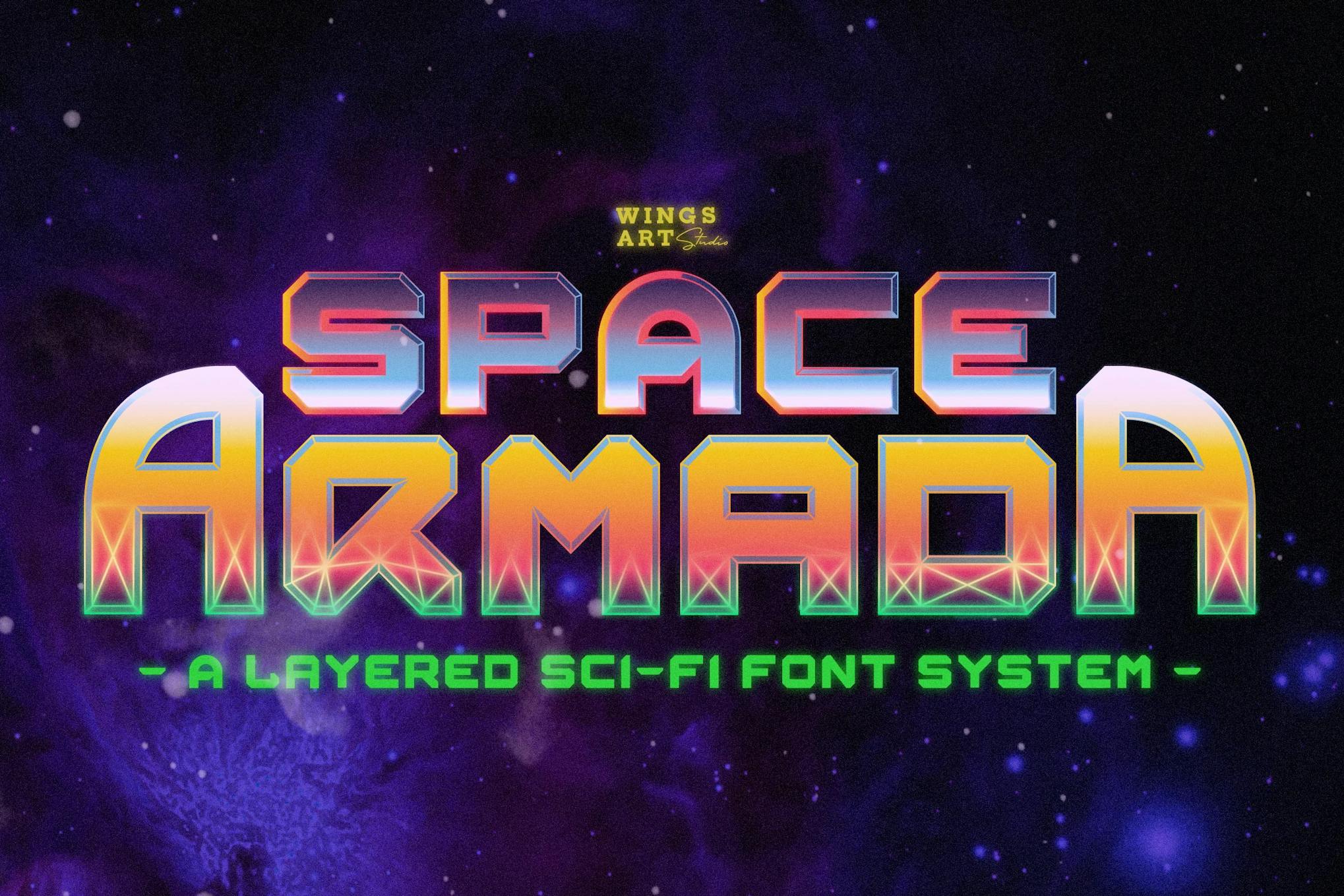
Video Game Font
Explore the Video Game Font, a creative asset that channels the retro cool aesthetic of the 80s. This font comes with 17 pixel martians and differing effects for uppercase and lowercase uses. In addition to the OTF & TTF formats, it includes Web Fonts and extended licensing for wider application. The downloadable package promises free updates, and the provider offers direct support for any queries.
Pixemon Pixel Game Font
The Pixemon Pixel Game Font is an innovative typeface, crafted to infuse pixel art essence with a modern touch. Notable for its radiant and diverse color scheme, Pixemon successfully recreates the retro vibe of classic video games. Its pixelated design delivers clear readability while maintaining a distinctive appeal. Ideal for game titles and in-game texts, Pixemon is suitable for designers seeking a retro yet relevant aesthetic. Supported formats include OTF, TTF, WOFF, CSS, and HTML with PUA Encoded Characters for accessibility without extra software.
Bit-32 – Retro Gaming Font
Bit-32 offers a retro gaming-inspired font that blends vintage charm and modern appeal. With a pixelated design and whimsical style, it’s an ideal fit for gaming projects or children’s education materials. Along with its easy installation on both PC and Mac platforms, Bit-32 is fully accessible in key design software including Adobe Illustrator, Adobe Photoshop, Adobe InDesign, and Microsoft Word.
Cashplank Gaming Font
The Cashplank Gaming Font is a spirited, sans-serif typeface engineered for gamers. It blends a playful, comic-inspired aesthetic with a dynamic energy optimal for younger audiences. This font is a versatile choice for a variety of projects including logos, event material, and packaging. From Adobe Illustrator to Microsoft Word, this font also boasts compatibility across multiple platforms for an accessible design experience.
Space Armada – A Retro Future Font
Step into a retro future design universe with the Space Armada font. Inspired by 1980’s sci-fi and emerging video game technologies, it consists of nine unique fonts that can be layered for desired effects. This all-caps font, with distinct upper and lower case characters, offers plenty of room for creativity. Despite its blast-from-the-past charm, Space Armada is perfect for contemporary design projects like game titles, posters, and book covers.
Pixemaze – Serif Pixelated Font
Pixemaze is a modern, serif, pixelated font, perfect for adding a unique and innovative flair to any design. Not only does it exude a digital aesthetic but it also delivers a blend of nostalgic and playful visuals. This font is versatile, catering well to digital gaming, retro designs, and even professional communications. Including uppercase, lowercase, punctuation, numbers, alternates, and multilanguage support, Pixemaze offers a comprehensive set of tools for creative expression.
Arcade Machine 80’s Retro Font
Arcade Machine 80’s Retro Font is a creative asset that brings back the nostalgia of 1980’s action movies, arcade games and synthwave vibes. Perfect for various projects like flyers, posters, logos, and t-shirt designs, this versatile font incorporates uppercase, lowercase, and ligatures for flexible design options. Dive into the classic 80’s era with the Arcade Machine Retro Font.
NT Brick Sans
NT Brick Sans is a pixelated sans serif font with a bold, rounded design. Crafted with unique open type features and low cap additions, it provides a fresh, modern aesthetic for your text. Remarkably versatile, it supports multiple languages, making it a perfect creative asset for both monolingual and multilingual projects. Enjoy giving your content a geometric twist with NT Brick Sans.
Graphic Font
Lowpoly is a playful font that can enrich your video game or playroom design. Compatible with most leading software like Adobe Suite, Microsoft Office, KeyNote and Pages, it comes in various formats (.otf, .ttf, .woff, .woff2) and supports multilingual, ligature, and a full set of punctuation and numerals. It’s an ideal tool to set the right tone and add a sparkle to your branding efforts.
Aero Flux Cyber Mecha Font
Aero Flux is a modern, cyber mecha font designed to elevate your designs with a unique, futuristic aesthetic. Its bold, squared design makes it the perfect choice for logos, headlines, packaging, or any project with a high-tech or industrial theme. Features include uppercase letters, numbers, punctuation, multilingual support, and a range of styles (Regular, Italic, Extruded, and Rounded).